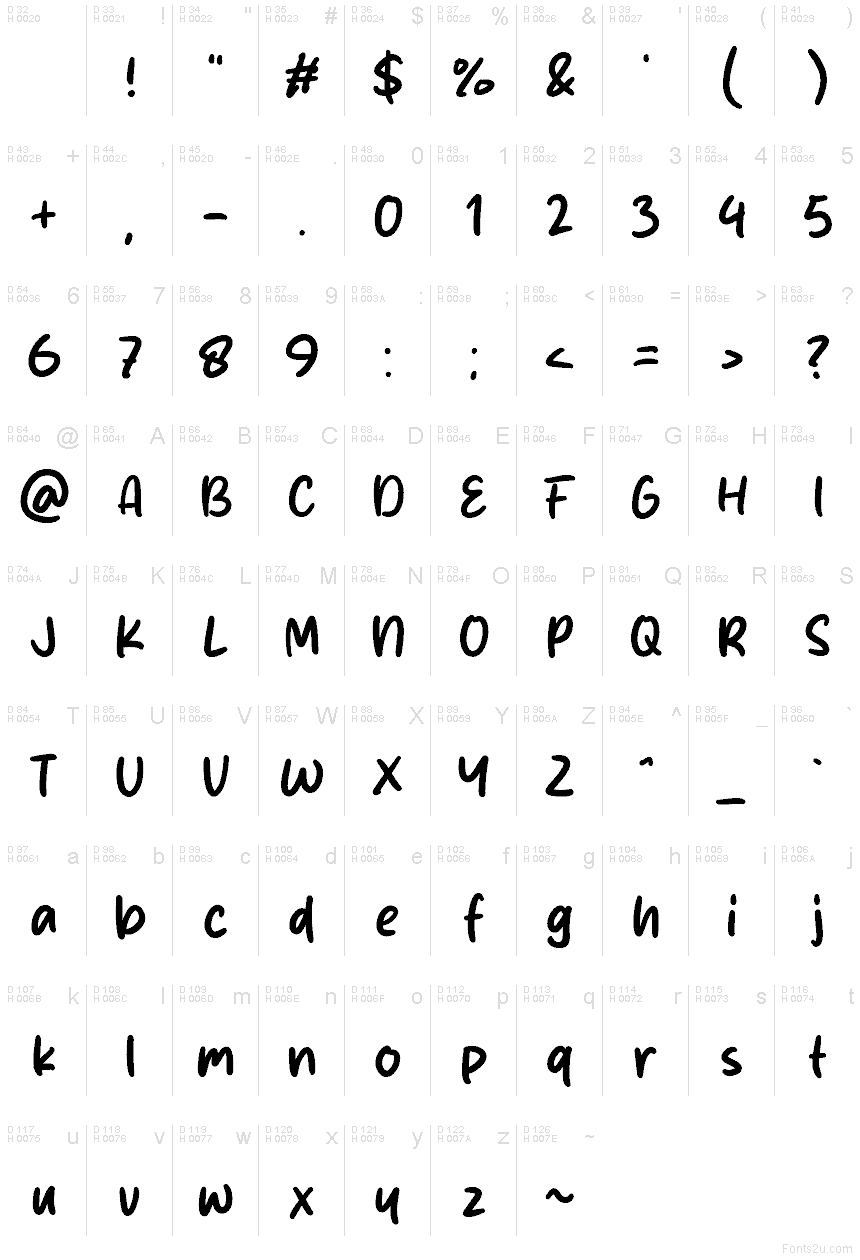
White Sugar
White Sugar font is a smooth, casual handwritten style typeface, designed by Origin Type. It has a contemporary appeal and relaxed aesthetic that bring an approachable feel to your work. Its characters are non-uniform with curved lines that make the entire set feel welcoming.
Use this free handwritten font for headings, paragraphs, cards (invitation or business), book covers, social media content, commercials and advertisements. It is useful for branding projects of all sorts as well as posters or signage designing among many other possibilities in the digital world and print.